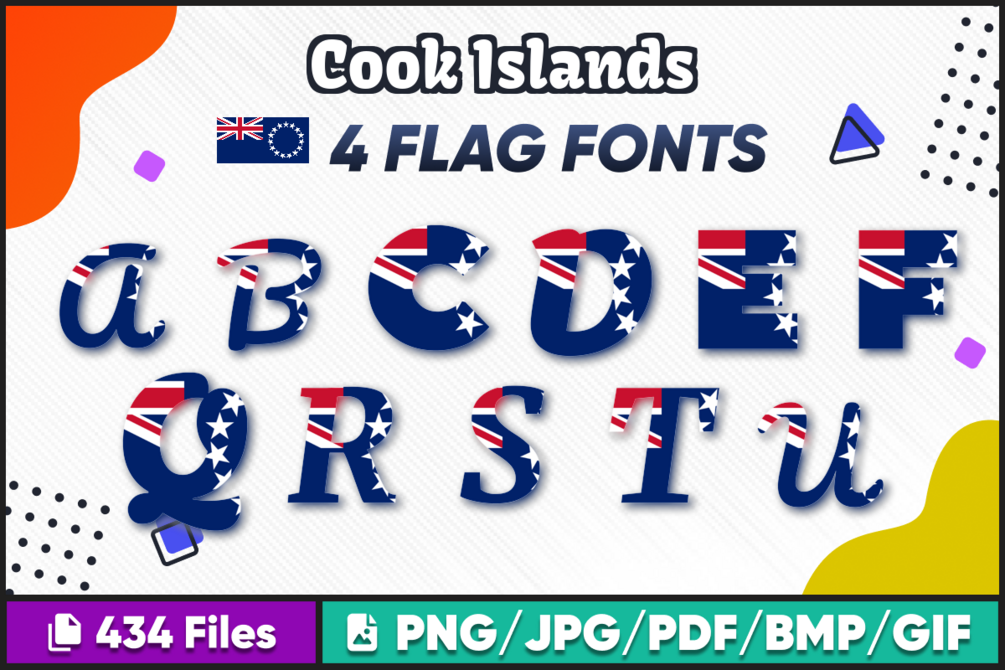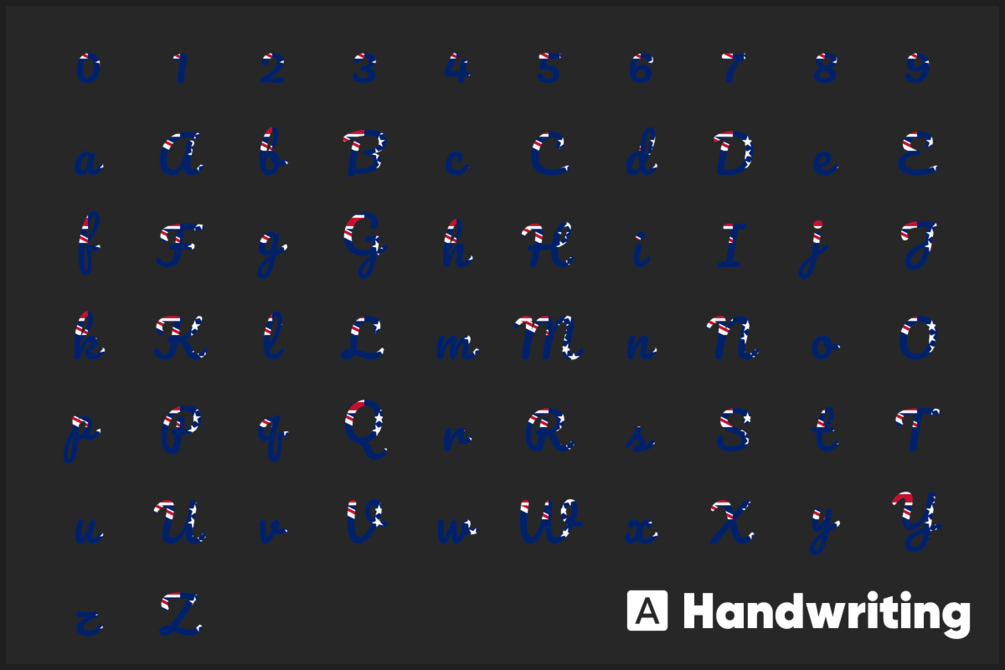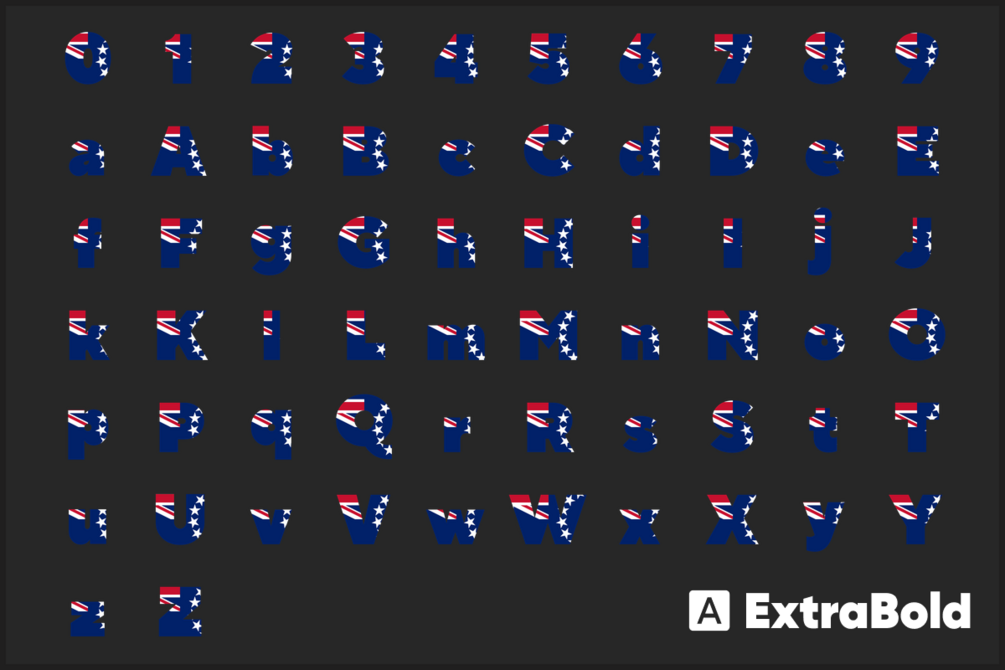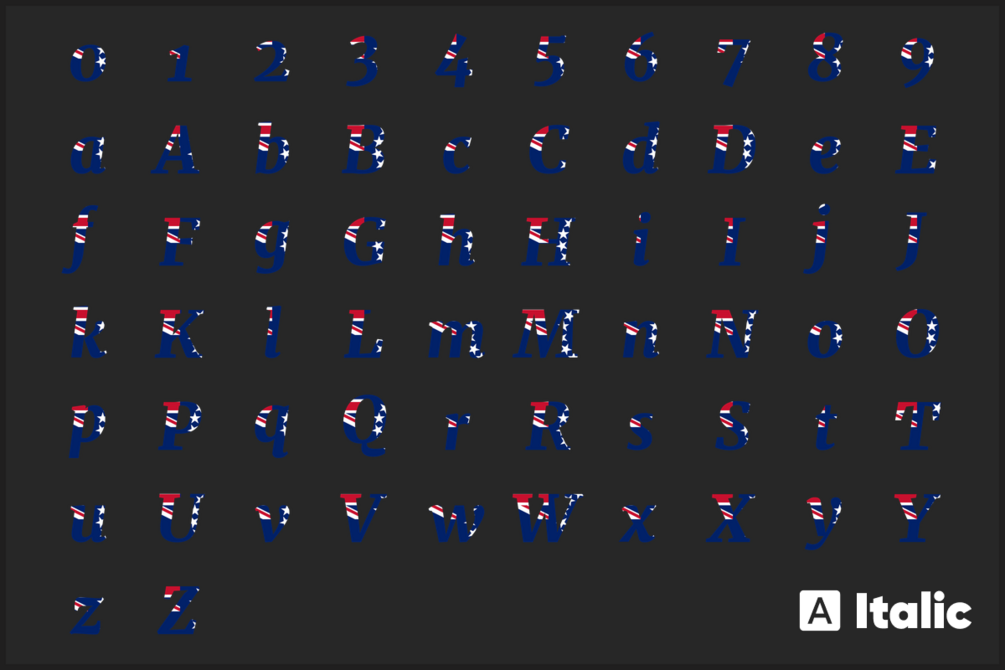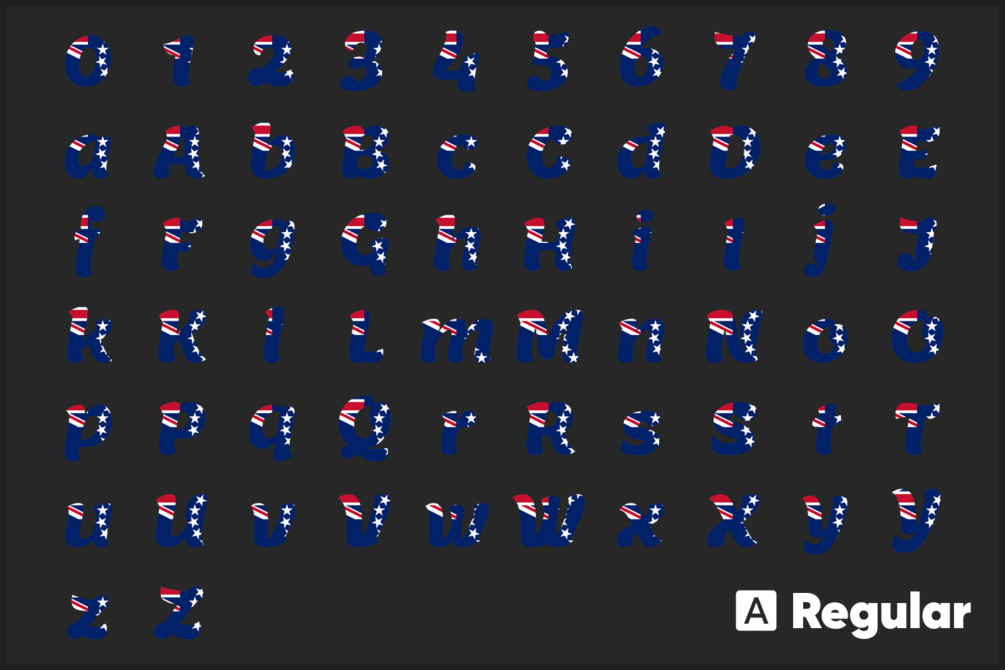
Cook Islands Font free download
Looking for a way to show off your patriotic spirit? Check out Cook Islands Font free download Flag Font, Alphabet. Our high-quality country font images are perfect for all your crafting needs, including t-shirt designs, scrapbooking, photo albums, card making, mug designs, prints, and more.